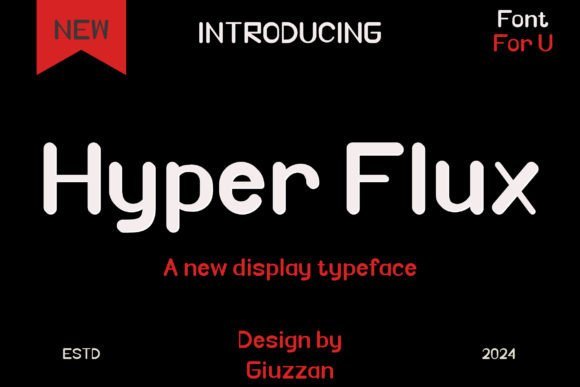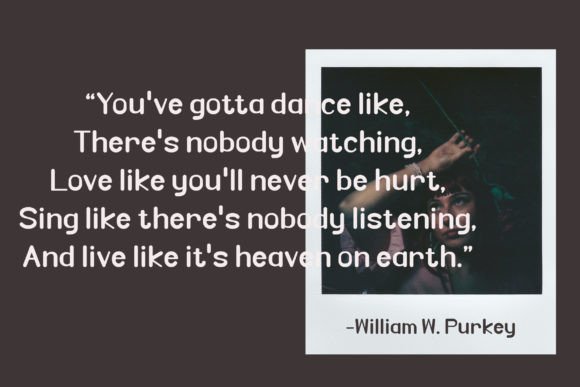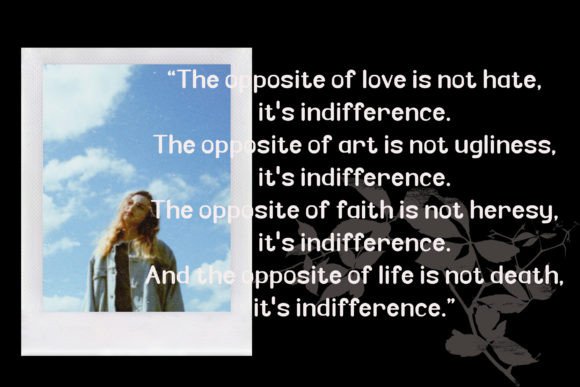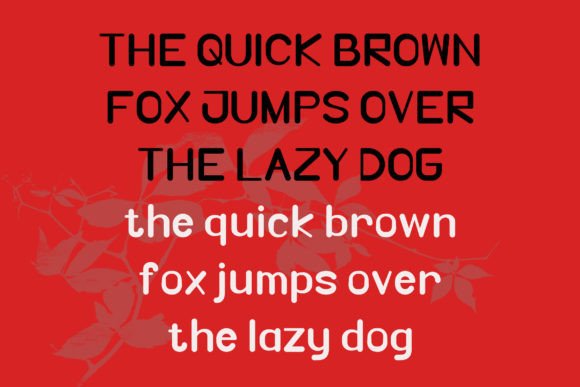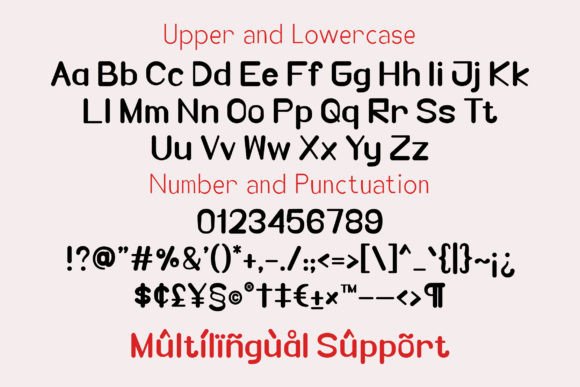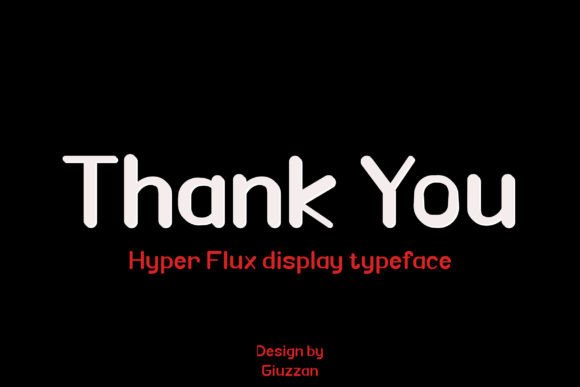
Unlock the Power of Modern Typography
Have you ever stared at a blank design canvas, waiting for inspiration to strike? For designers, those moments can be the most thrilling – and sometimes the most daunting. But what if you had the perfect font to bring your vision to life? Enter the Hyper Flux Font, a dynamic, futuristic display font designed to make a bold statement.
With its sharp, geometric lines and bold aesthetic, the Hyper Flux Font is perfect for posters, logos, and headlines. It’s easy to read, versatile, and adds a modern, energetic touch to any design project. Whether you’re working on a high-impact campaign or a sleek brand identity, the Hyper Flux Font is a valuable tool to have in your arsenal. By incorporating this font into your design, you’ll be able to make a strong visual impact and leave a lasting impression on your audience.
Key Features of Hyper Flux Font
- Font Family: Hyper Flux Font is a modern sans-serif font family that offers a unique and sleek design.
- Character Count: The font family includes a total of 256 characters, including uppercase and lowercase letters, numbers, and special characters.
- Unique Characteristics: The font features a distinctive ‘flux’ effect, where the letters seem to shift and change as you look at them, creating a dynamic and eye-catching visual effect.
Review of Hyper Flux Font
Overall, I think Hyper Flux Font is a great addition to any designer’s toolkit. The font is highly customizable, which is a major advantage. It’s perfect for creating eye-catching headlines and titles. ✨ The font’s futuristic vibe is also a major plus, as it can add a sleek and modern touch to any design.
Here are some of the key features that I love about Hyper Flux Font:
- Highly customizable, with a wide range of options for color, size, and style.
- Futuristic and modern vibe, perfect for designs that need a cutting-edge feel.
- Works well in both digital and print applications.
- Some users may find the font to be a bit too busy or overwhelming, especially at larger sizes.
- The font’s customization options can be overwhelming for beginners.
- May not be suitable for designs that require a more traditional or classic look.
Overall, I think Hyper Flux Font is a great choice for designers who want to create bold, eye-catching designs. With a little practice and patience, it’s definitely worth the investment.
Tips for Getting the Most Out of Hyper Flux Font
For best results, use Hyper Flux Font in bold or italic styles to add emphasis to your text.
Hyper Flux Font is ideal for:
Typography-heavy designs, such as logos and branding materials.
Creating eye-catching headings and titles.
Adding a unique touch to digital products and marketing materials.
Alternatives to Hyper Flux Font
Comparison to Hyper Flux Font: Inter Font is more versatile and has a wider range of weights and styles, making it a better choice for complex designs. However, Hyper Flux Font has a more distinctive and futuristic feel, making it suitable for futuristic or high-tech designs.
Avenir Next
Avenir Next is a sans-serif typeface designed by Adrian Frutiger. It is a highly legible and elegant font, suitable for use in corporate and editorial contexts. Avenir Next is a great alternative to Hyper Flux Font for designers who need a sophisticated and refined sans-serif font.
Comparison to Hyper Flux Font: Avenir Next has a more traditional and elegant feel, whereas Hyper Flux Font is more modern and futuristic. Avenir Next is also more suitable for print use, while Hyper Flux Font is better suited for digital use.